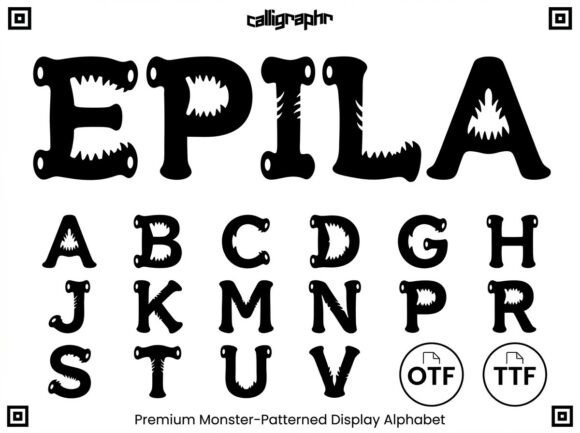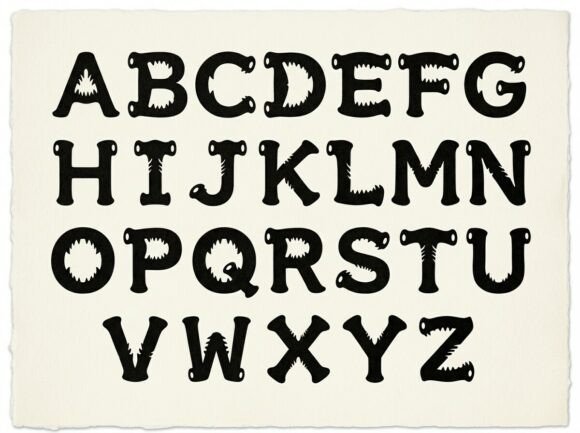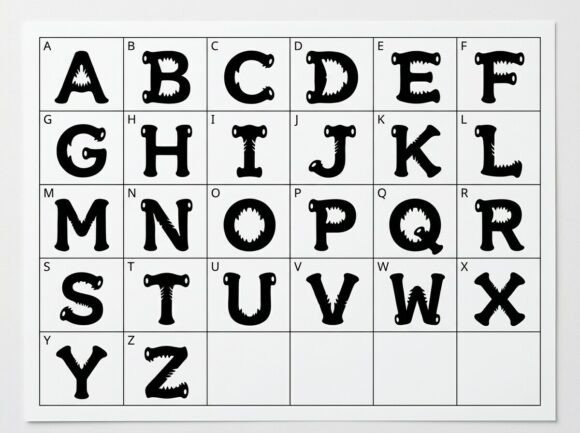
Unleash a Touch of Playful Terror with Epila Font
Are you looking for a unique and captivating font to add a touch of personality to your design project? Look no further than Epila, a premium display alphabet that combines typography with character design. This bold and blocky font is perfect for designers and crafters who want to add a sense of playfulness and whimsy to their work.
The Unique Design of Epila
Epila’s design is truly one-of-a-kind. Each letter is artfully transformed into a miniature creature, featuring sharp-toothed “mouths” carved out of negative space and organic, horn-like terminals. The heavy, geometric silhouettes are softened by these illustrative monstrous details, making Epila an exceptional choice for a variety of design projects.
The font’s design is perfect for creating a sense of handcrafted whimsy and professional, creature-inspired charm. Whether you’re designing for a spooky-themed creative project or a standout header for a gaming channel, Epila delivers a unique and captivating visual experience.
Perfect for Spooky-Themed Projects
Epila is an ideal choice for children’s Halloween event branding, toy packaging, and other spooky-themed projects. The font’s playful and non-threatening design makes it perfect for kids’ projects, while its edgy and bold style ensures that it will stand out from the crowd.
Imagine using Epila to create eye-catching posters, flyers, and brochures for a Halloween party or event. The font’s unique design will add a touch of playful terror to your marketing materials, making them more engaging and memorable for your audience.
Edgy and Bold Style for Streetwear and Gaming
Epila’s bold and edgy style also makes it perfect for streetwear logos, gaming channels, and other projects that require a standout visual identity. The font’s heavy, geometric silhouettes and illustrative monstrous details create a unique and captivating visual experience that will help your brand or project stand out from the crowd.
Whether you’re designing a logo for a streetwear brand or creating a title sequence for an animated video, Epila’s bold and edgy style is sure to make a lasting impression.
Key Features of Epila Font
- Unique creature design: Each letter is artfully transformed into a miniature creature, featuring sharp-toothed “mouths” carved out of negative space and organic, horn-like terminals.
- Bold and blocky style: Epila’s heavy, geometric silhouettes create a bold and eye-catching visual experience.
- Playful and whimsical: The font’s design is perfect for creating a sense of handcrafted whimsy and professional, creature-inspired charm.
- Perfect for spooky-themed projects: Epila is an ideal choice for children’s Halloween event branding, toy packaging, and other spooky-themed projects.
- Edgy and bold style: The font’s bold and edgy style makes it perfect for streetwear logos, gaming channels, and other projects that require a standout visual identity.
Epila is a unique and captivating font that combines typography with character design. Its bold and blocky style, combined with its playful and whimsical creature design, make it perfect for a variety of design projects. Whether you’re designing for a spooky-themed creative project or a standout header for a gaming channel, Epila delivers a sense of handcrafted whimsy and professional, creature-inspired charm to every word.